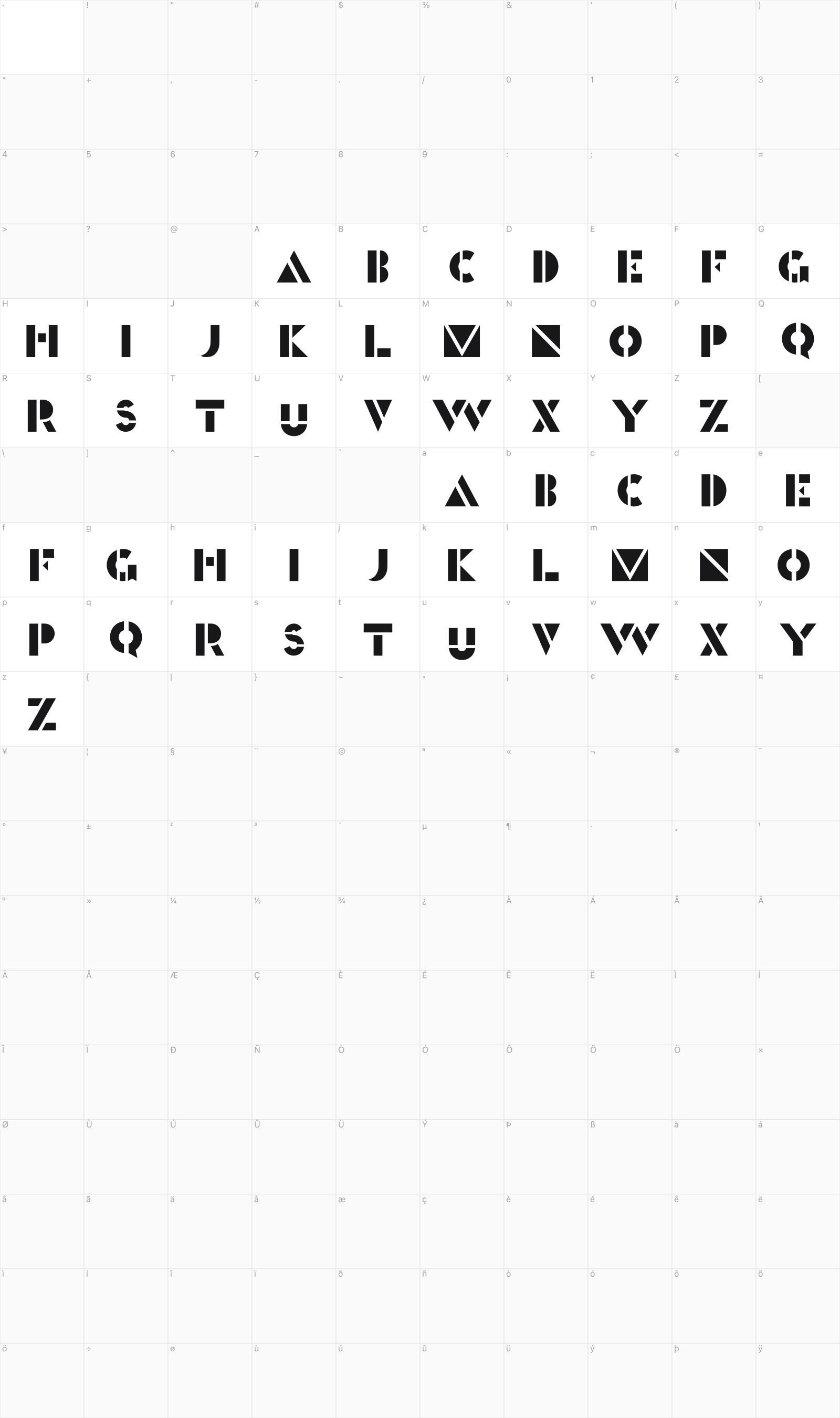
Generals
Generals is a heavy, uppercase stencil face by Vladimir Nikolic with bold geometric letterforms and the kind of no-nonsense authority you'd expect stamped on military cargo crates. The cuts are clean and deliberate, keeping the letters readable even at their thickest. Built for headlines, posters, and display work where you want something that feels regimented and unmistakably commanding.